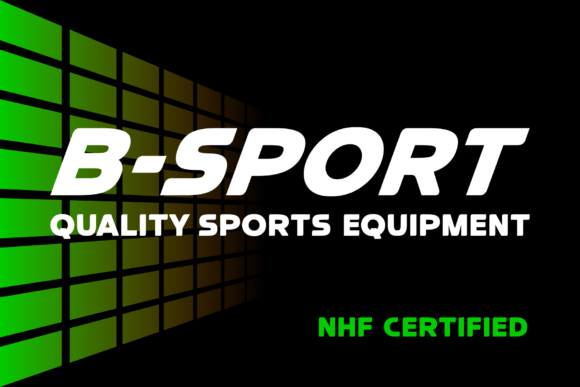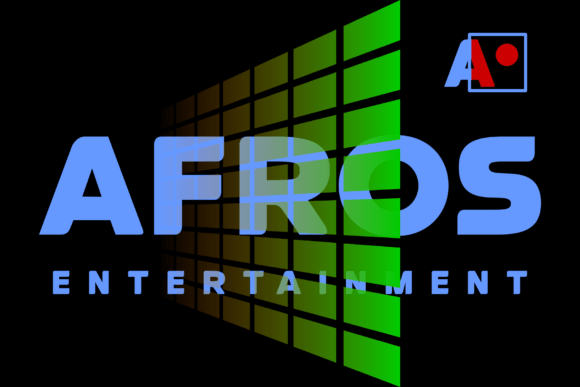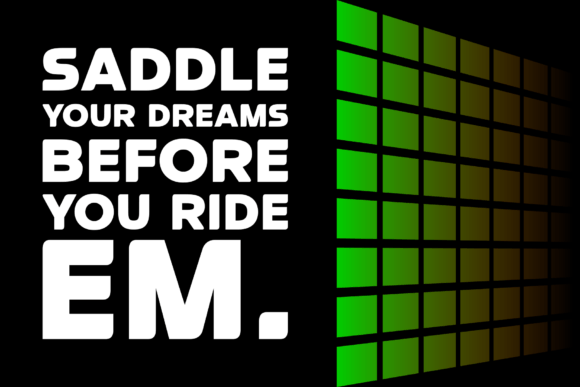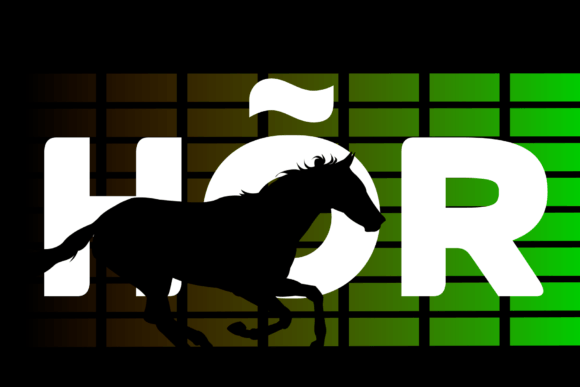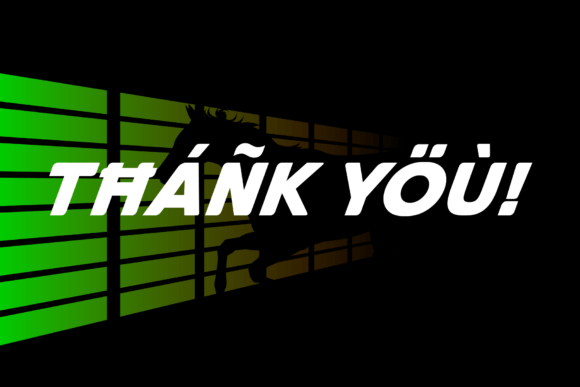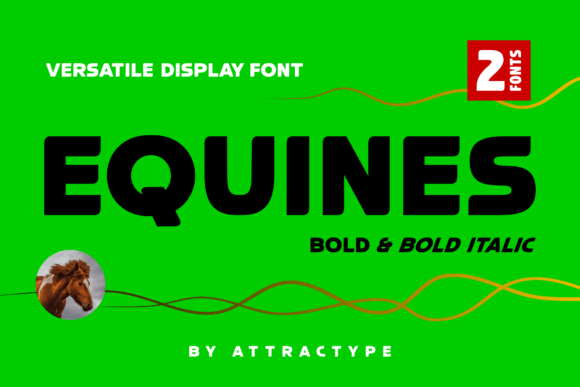
Introducing Equines Font: Elevate Your Designs with a Versatile Display Font
In the world of typography, a font can make or break a design. For designers and crafters looking for a bold and elegant display font, Equines Font is an excellent choice. Specifically designed for display purposes, Equines Display is a modern, thick, and strong font family that can elevate your branding, logos, banners, and lettering to the next level.
What Sets Equines Display Apart
Equines Display boasts a unique feature that sets it apart from other fonts: a rounding feature added to the corners of the letters. This cross-system approach creates a dynamic, strong, and elegant word display that’s perfect for making a statement. The font’s modern design and thick lines ensure that your message is conveyed clearly and effectively.
A Font Family with Variety
At the time of writing, Equines Display offers an impressive 14 styles to cater to various design needs. These styles include condensed, expanded, outlined, and shaded options, providing designers with a wide range of choices to suit their projects. Whether you’re looking for a bold and condensed font or an elegant and expanded one, Equines Display has got you covered.
What’s Included in the Package
For those interested in trying out Equines Display, the product package includes two font styles: Bold and Bold-Italic. This allows designers to experiment with different looks and feels, while also providing a solid foundation for their designs.
Equines Display is an excellent choice for designers and crafters looking to add a professional touch to their work. With its versatile design and range of styles, this font family is perfect for:
- Branding and logos: Create a lasting impression with a bold and elegant font that’s sure to stand out.
- Banners and posters: Grab attention with a clear and dynamic font that’s perfect for large-format designs.
- Lettering and signage: Add a touch of sophistication to your lettering and signage with Equines Display’s unique rounding feature.
Tips for Using Equines Display
To get the most out of Equines Display, here are a few tips:
- Experiment with different styles: With 14 styles to choose from, don’t be afraid to try out different options to find the one that works best for your design.
- Pair with complementary fonts: Equines Display works well with a range of fonts, so don’t be afraid to experiment with different pairings to find the perfect combination.
- Use for display purposes: As its name suggests, Equines Display is designed specifically for display purposes, so use it to make a statement and grab attention.
Equines Display is a versatile font family that’s perfect for designers and crafters looking to elevate their designs. With its modern, thick, and strong appearance, unique rounding feature, and range of styles, this font family is sure to become a go-to choice for display purposes. Whether you’re working on branding, logos, banners, or lettering, Equines Display is an excellent choice that’s sure to make a lasting impression.